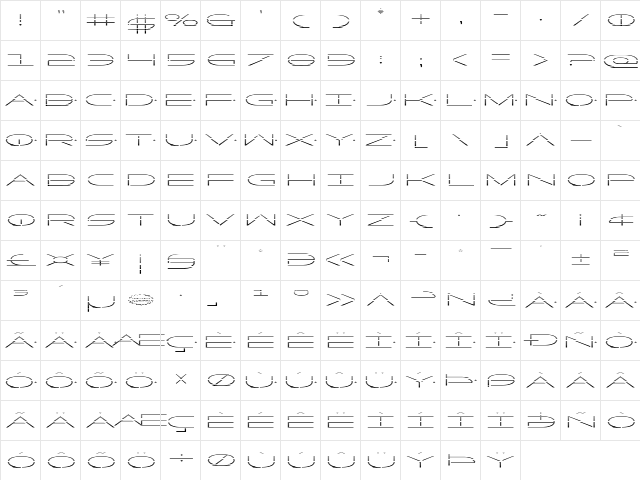
Factor Gradient Regular Font Preview
Factor Gradient Regular
Design Context for Factor Gradient Typeface
Factor Gradient is a composed and adaptable typeface that performs quietly and consistently across a wide range of design contexts.